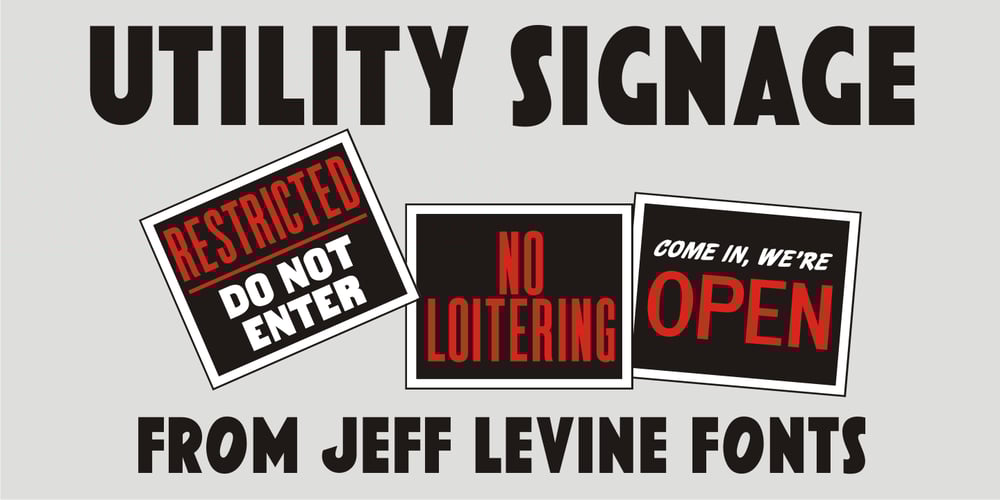
Utility Signage JNL
Utility Signage JNL font
Utility Signage JNL Font Family was designed by Jeff Levine and published by Jeff Levine. Utility Signage JNL contains 1 styles and family package options. Utlity Signage JNL is a collection of fifty-two various “all purpose signs” we’ve all seen in hardware and variety stores is perfect for spot illustrations in ad copy, making one-off images for props in a stage play or production or even for novelty jokes or gags. NOTE: Usage of this font to create printed or digital “stock signs” for resale is not part of, nor allowed under the terms of the standard Jeffrey N. Levine Software License Agreement. A separate license for the manufacture and distribution of derivative products is required by contacting the font author directly. Please refer to the EULA for further details.